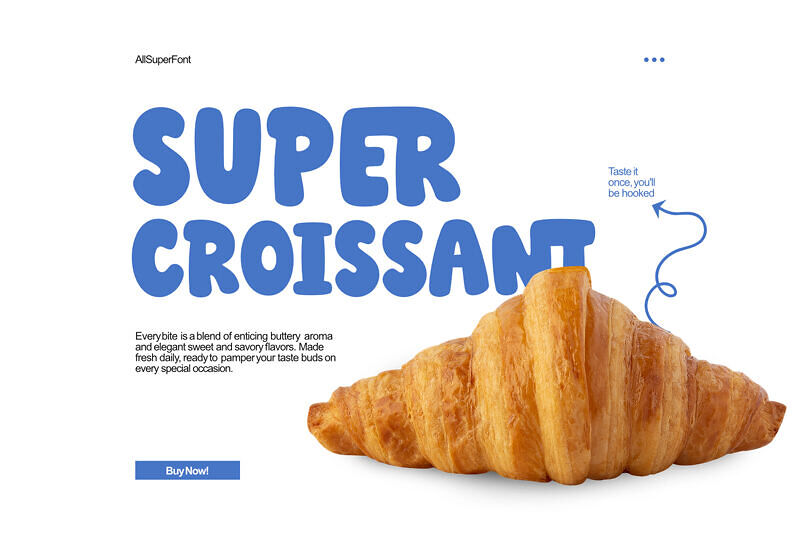
Super Croissant is a free cartoon display font defined by its chunky, rounded letterforms that mimic the puffiness of fresh bakery dough. With a happy wobble and smooth curves, this playful typeface adds a friendly, bouncy energy to any design.
Ideally suited for attention-grabbing headlines, food branding, and fun posters, its tight spacing ensures a cohesive, soft aesthetic. Whether for digital art or print, Super Croissant brings a delightful, buttery charm to your creative projects.